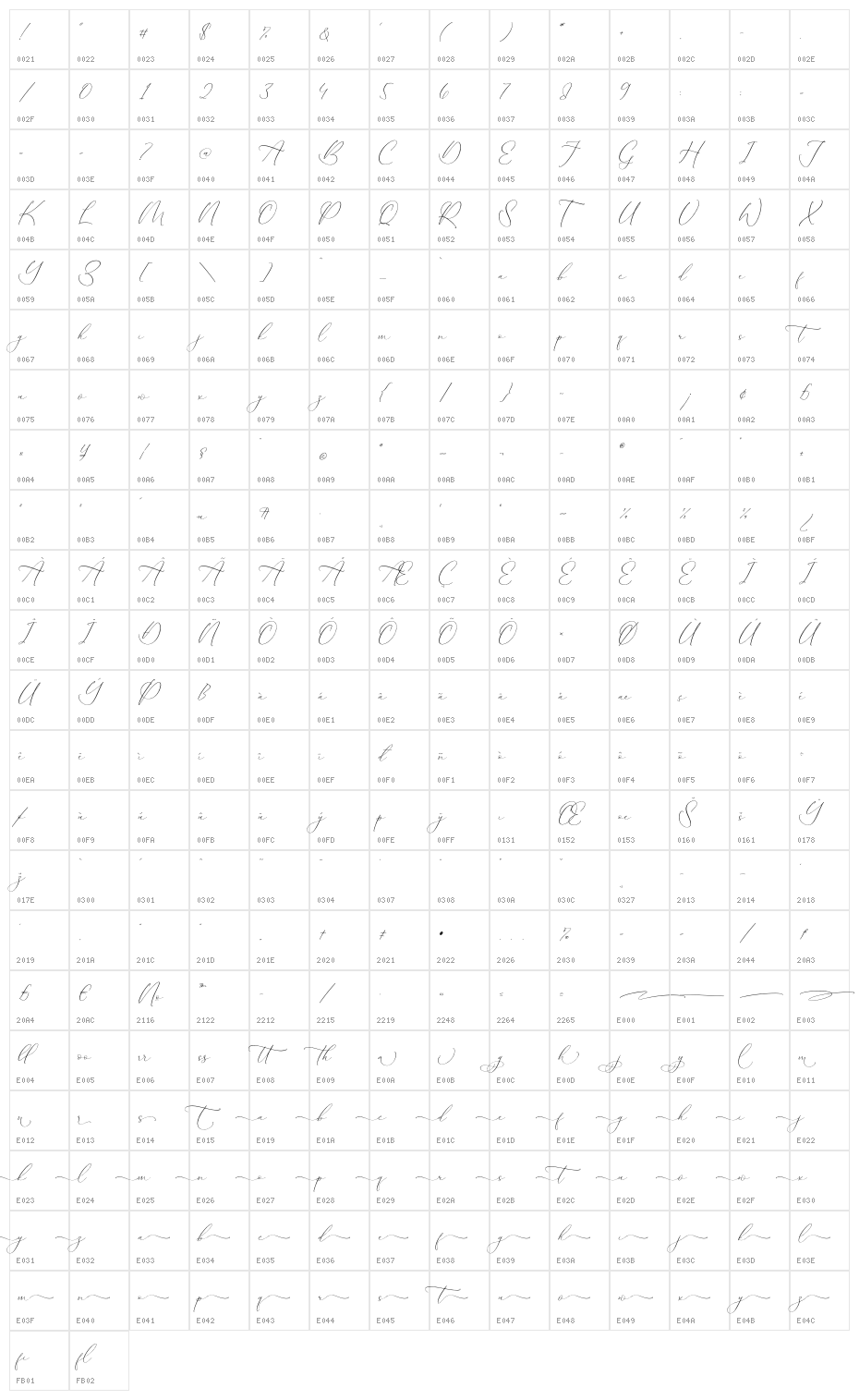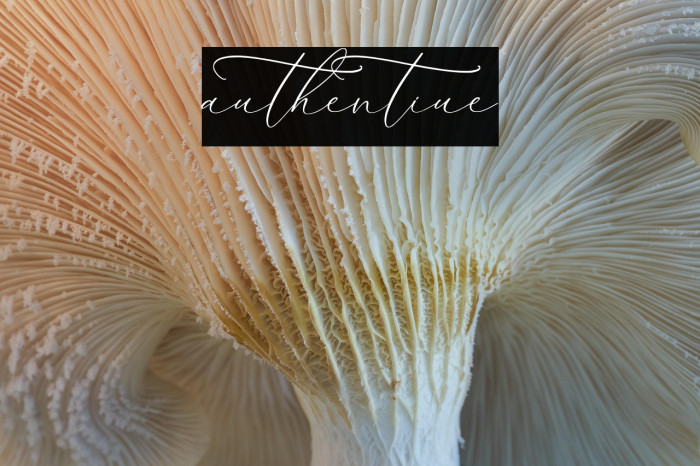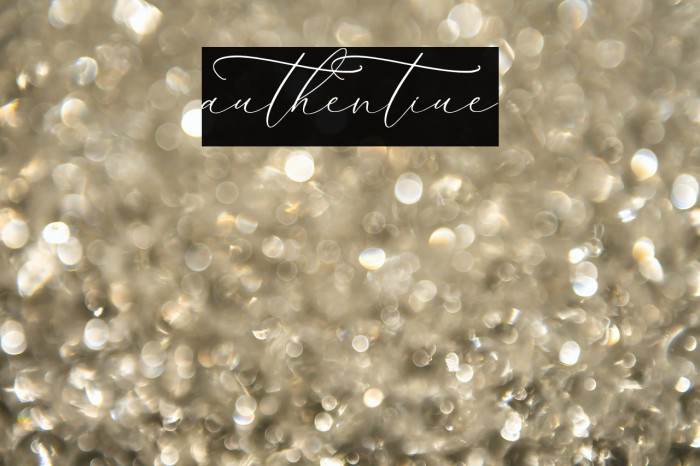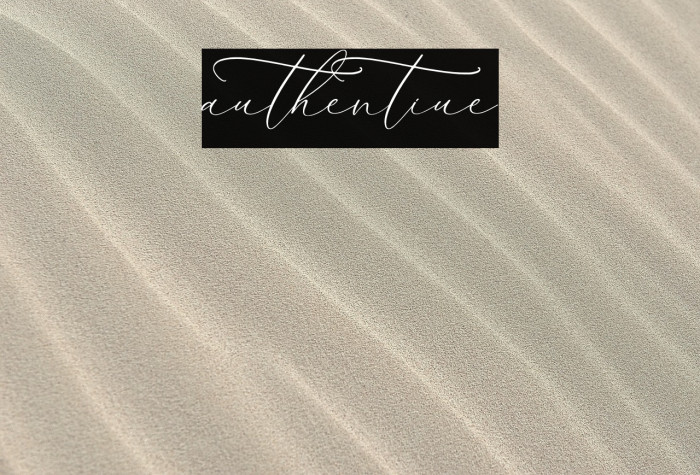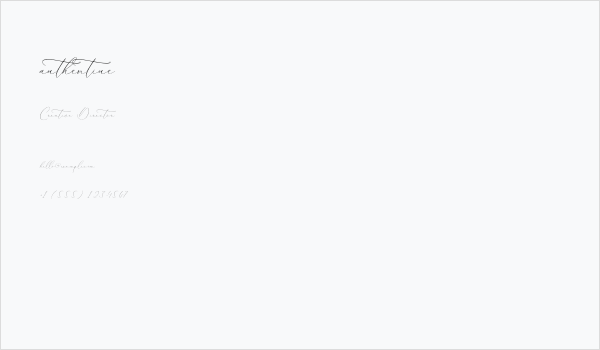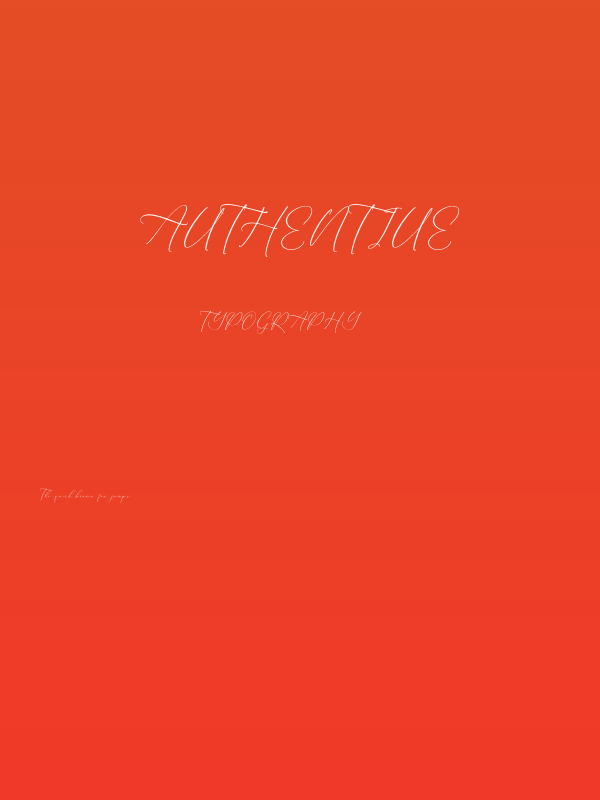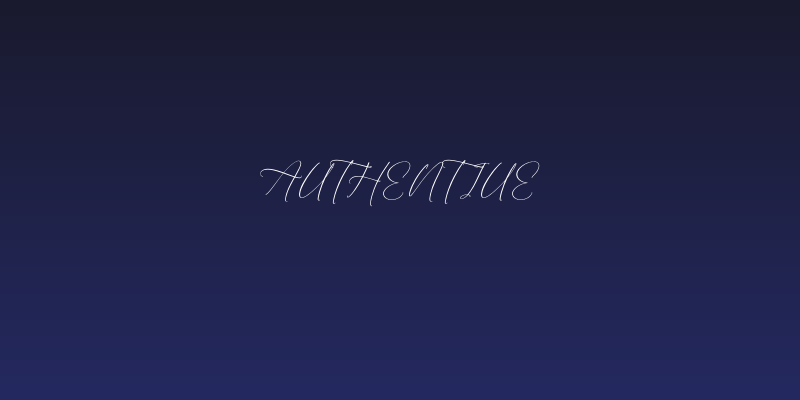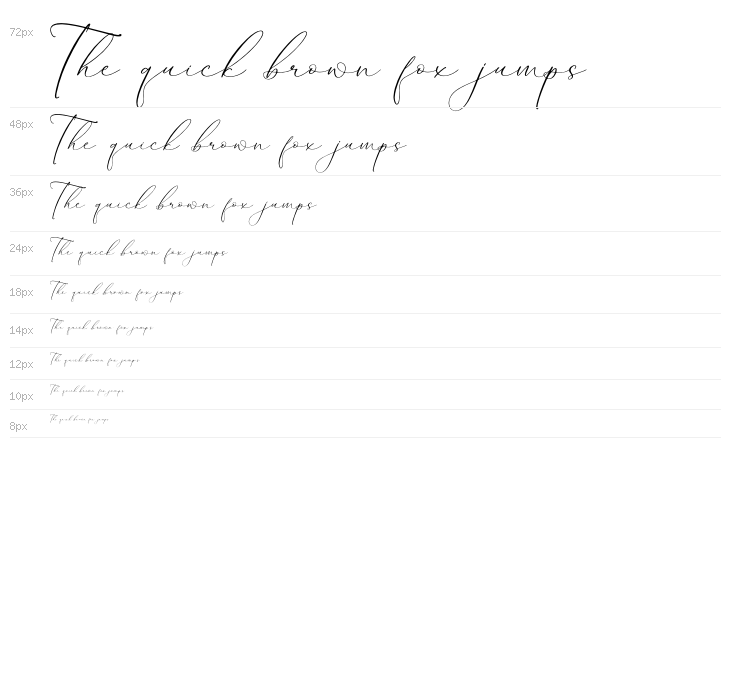
authentiue Font
authentiue Description
Elegant and flowing script font with delicate strokes and a handwritten appearance.
| Use Case | Logos, Invitations, Greeting cards |
| Proposed Projects | Invitations, greeting cards, elegant branding. |